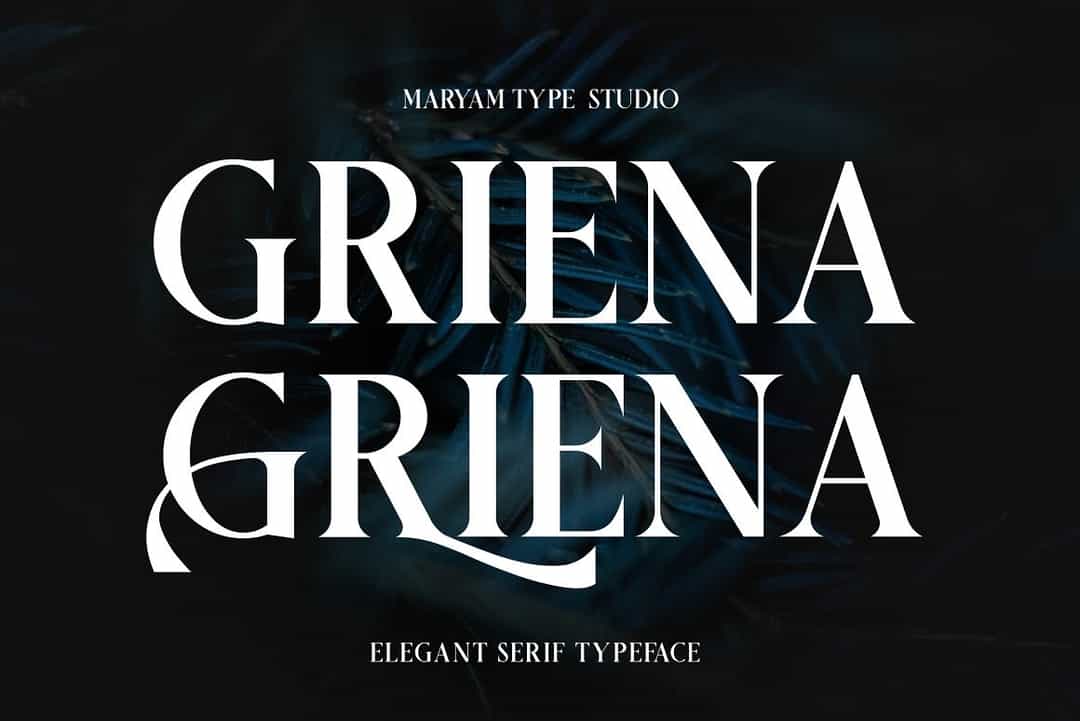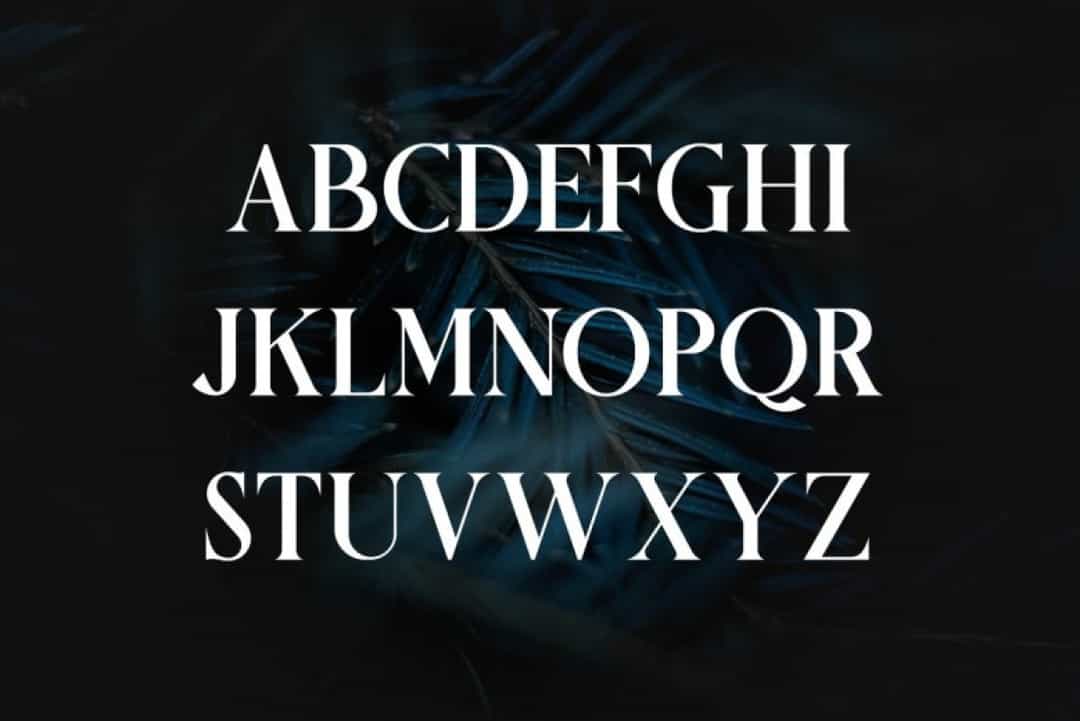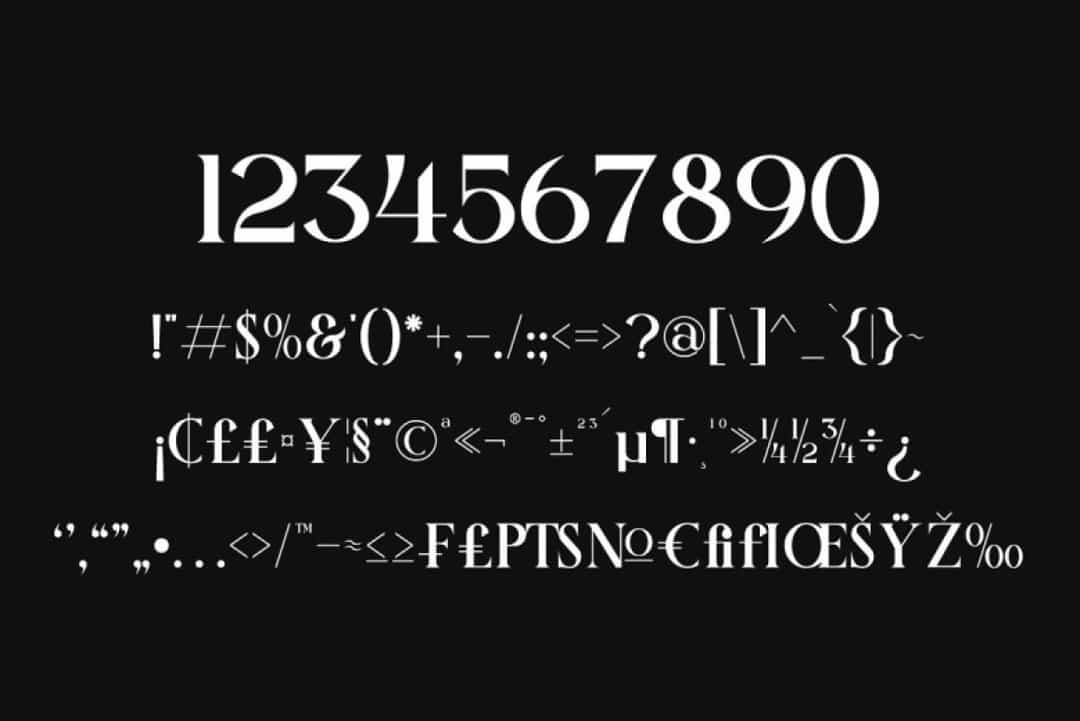
Griena Serif Typeface features a contemporary yet luxurious aesthetic, perfect for logos, movie/book titles, fashion brands magazines, clothing quotes and much more.